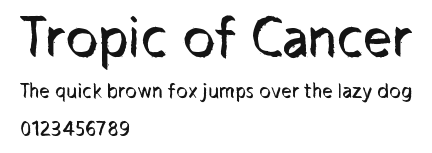
• Font Name: Tropic of Cancer
• Full Font Name: Tropic of Cancer
About Tropic of Cancer.ttf
Tropic of Cancer.ttf is a modern, elegant sans-serif font designed for ultimate readability and visual harmony. Perfect for branding, headlines, web design, and print materials.